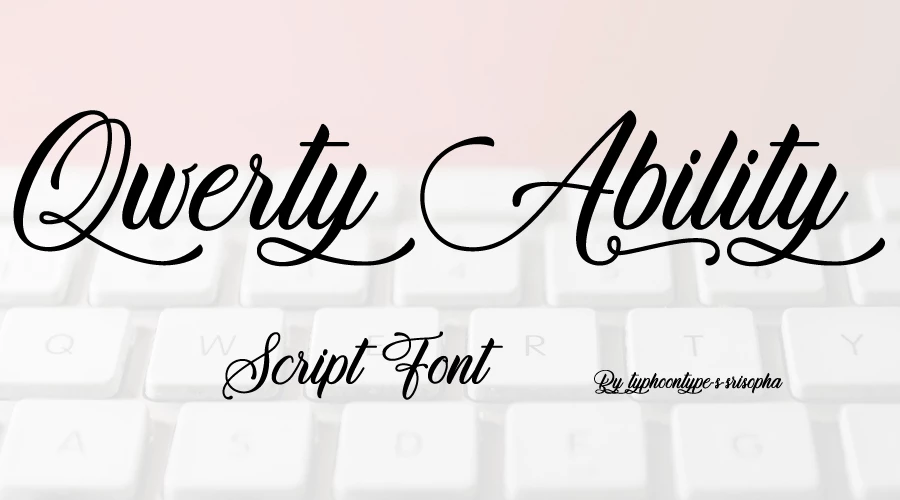
Qwerty Ability Script Font
About Qwerty Ability Font
Qwerty Ability is a modern and elegant script handwritten font first published by Typhoon Type in 2019. It is a unique and bold font that has been expertly crafted by designer Suthi Srisopha.
One of the standout features of Qwerty Ability is its distinct calligraphy style, which makes it an ideal choice for a wide range of projects. Whether you’re working on a logo for a fashion brand, creating beautiful wedding invitations, or designing a blog header, Qwerty Ability is sure to give your work a polished and professional look. You can use it for a variety of different purposes. This makes it a great choice for anyone looking to add a personal touch to their designs.
Qwerty Ability is an elegant, versatile font that’s great for a variety of projects. Its unique and bold calligraphy style is perfect for making eye-catchy titles and headlines for logos, invitations, blog headers, posters, quotes, branding, and more. It’s a high-quality and authentic font that’s worth considering for your design projects. With this font you make your art and design project look pretty and trendy.
What type of font is Qwerty Ability?
Ans: Qwerty Ability is a script calligraphy, handwritten font designed by Suthi Srisopha and published by Typhoon Type.
What design projects is Qwerty Ability suited for?
Ans:  Qwerty Ability is particularly well-suited for design projects that require a touch of elegance and sophistication, such as logos, wedding invitations, blog and website headers, posters, quotes, branding, DIY projects, book covers, and more.